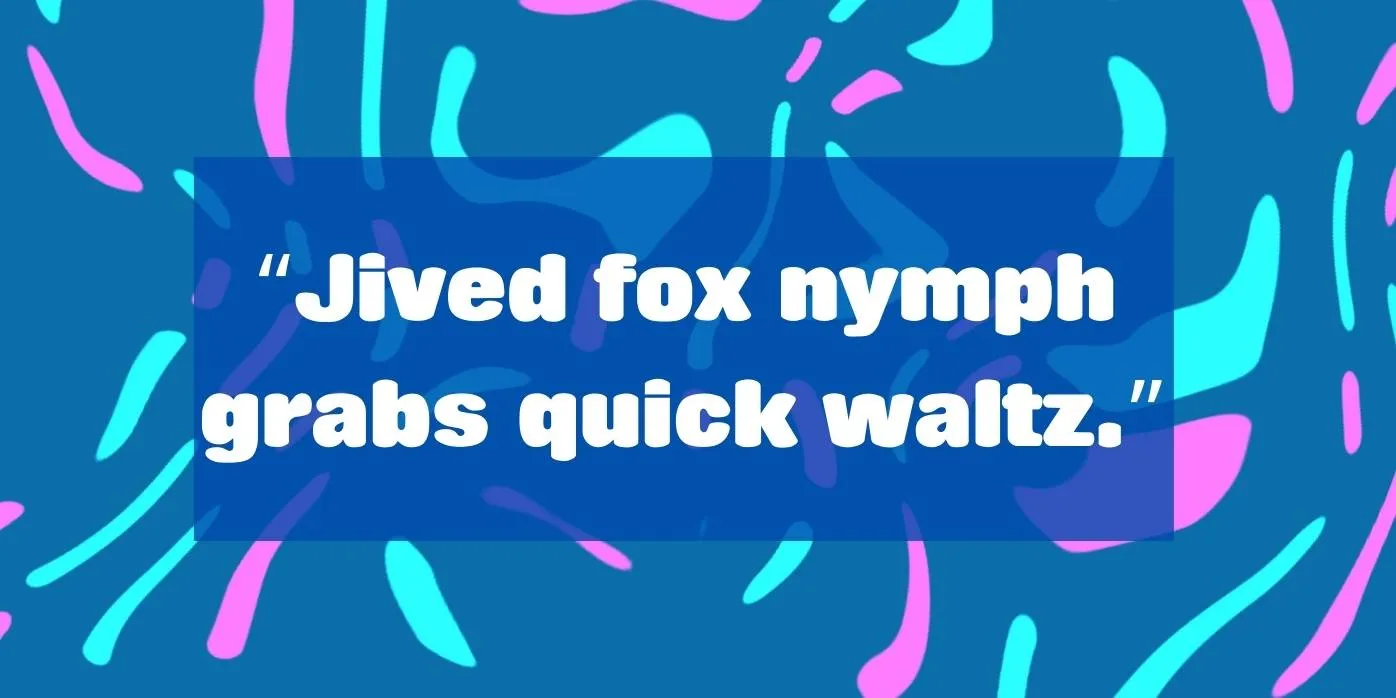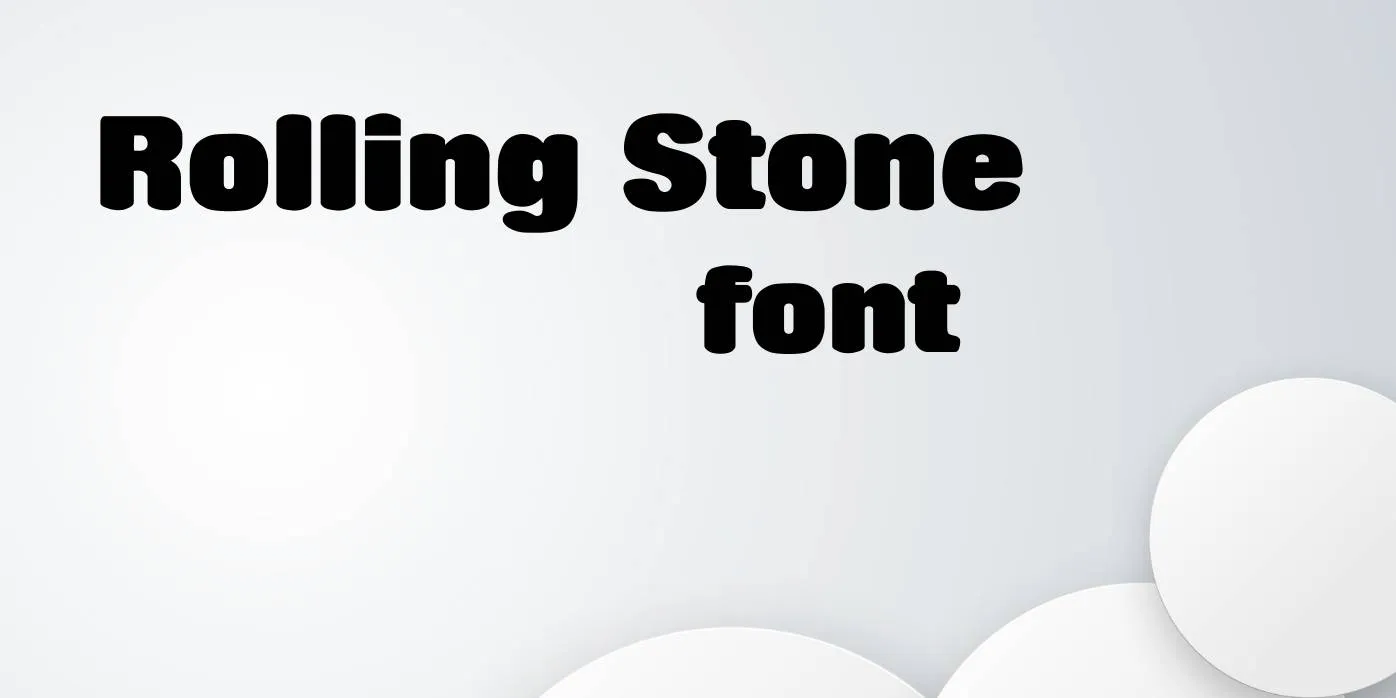
Rolling Stone Font
Today, we are going to present the most stunning and classic typeface that was known by the name Rolling Stone Font. This stylish typeface belongs to the Display typeface. This attractive typeface was developed and published by Sharkshock. This typeface was known by the name of special magazines.
Mostly, this tremendous typeface is designed for the use of graphic designs. This awesome font has different special characters that include uppercase, lowercase. Numerals, and so on. This cozy font is the best and perfect for different logos and marketing projects.
This typeface has keen and clean features. Its generator tool is best for different interesting graphic designs.